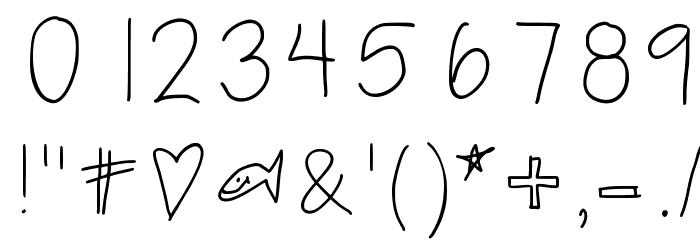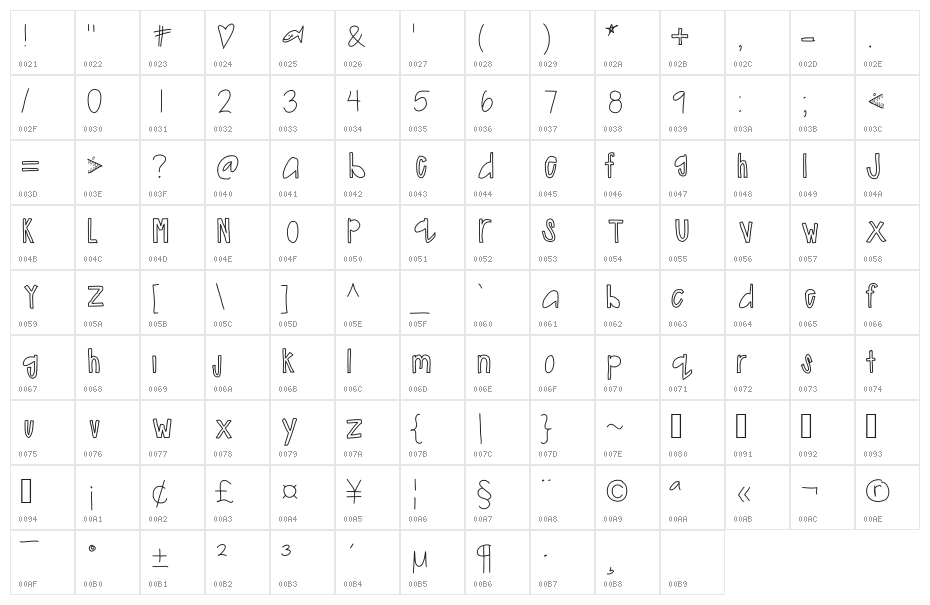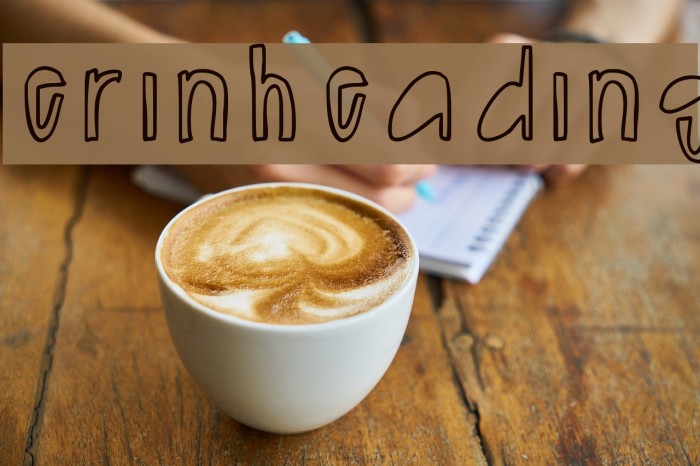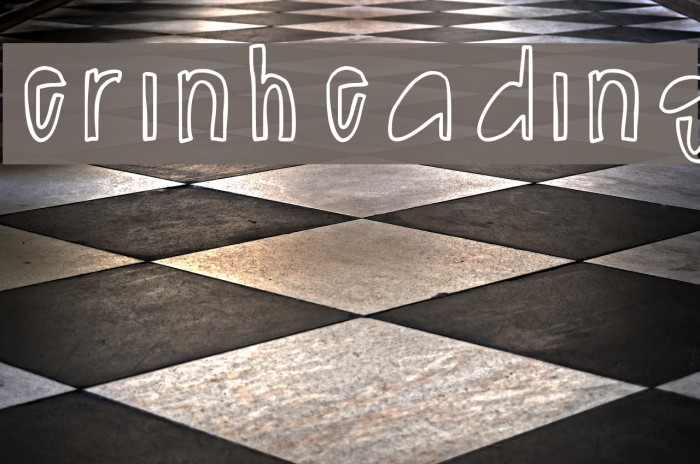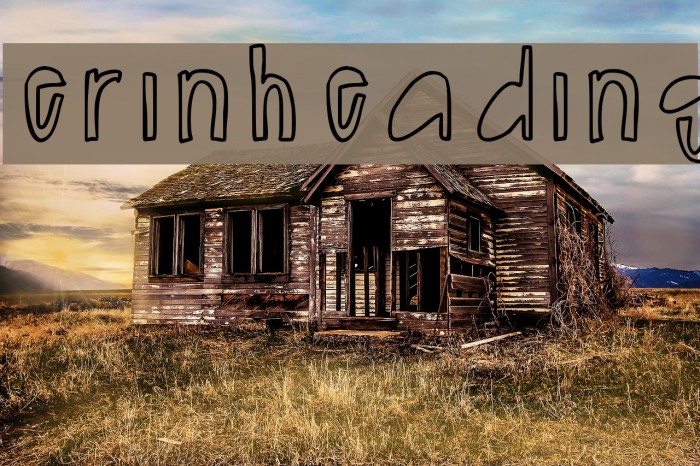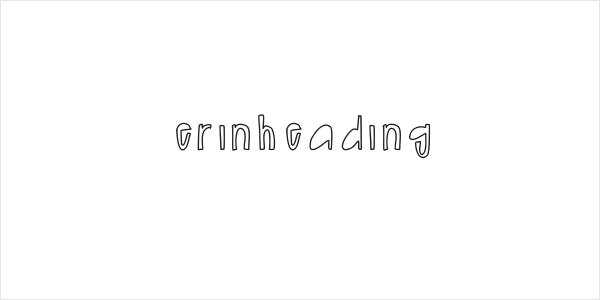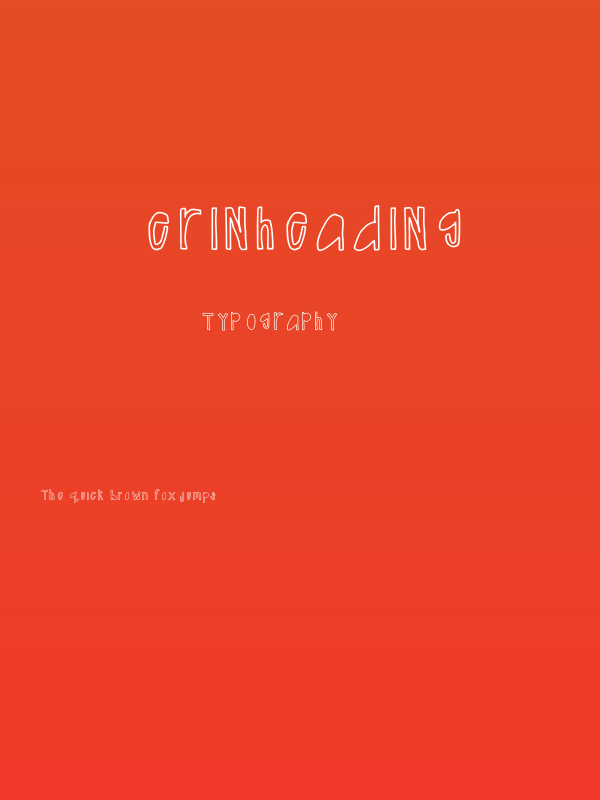
erinheading Font
erinheading Description
This playful and whimsical font features a hand-drawn, casual style with a unique charm. The letters are characterized by their irregular shapes and varying line thicknesses, giving them a lively and informal appearance. The uppercase and lowercase letters maintain a consistent style, with rounded edges and a slightly uneven baseline, enhancing the font's approachable and friendly feel. The numbers and special characters follow the same quirky design, making the font versatile for creative projects. Its distinctiveness lies in the organic flow and the subtle imperfections that mimic handwriting, making it ideal for projects that require a personal touch.